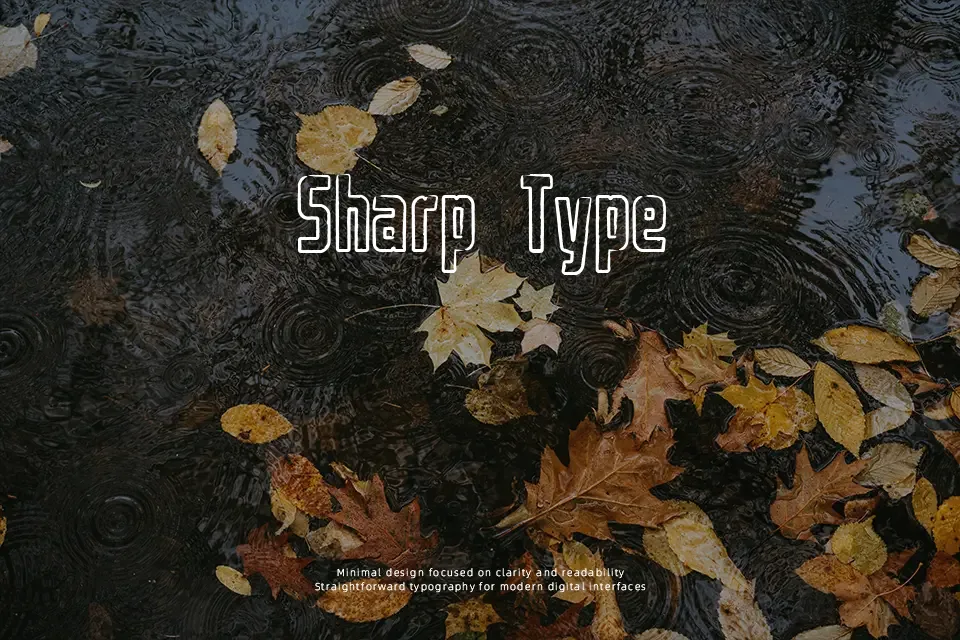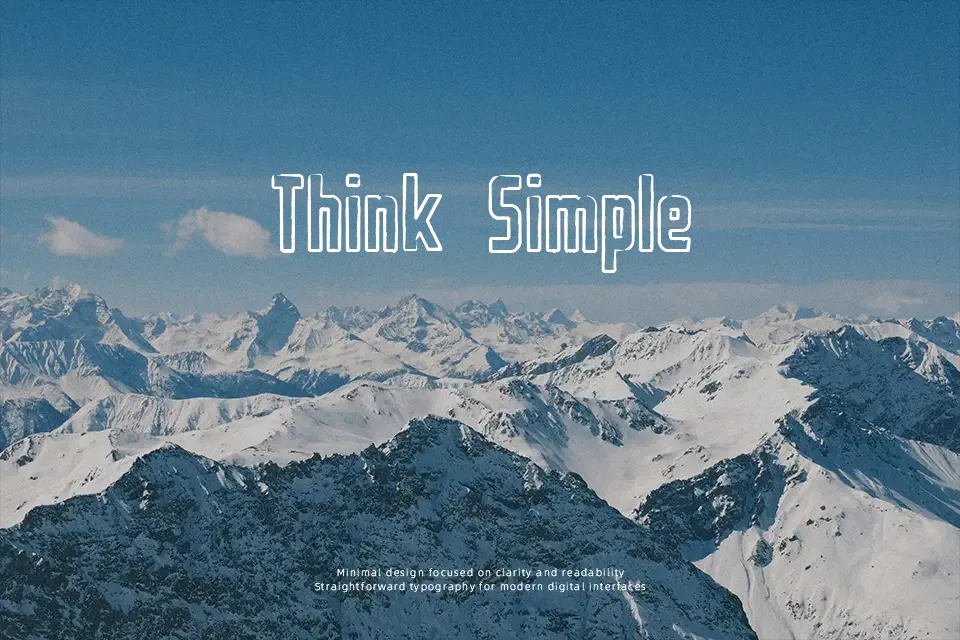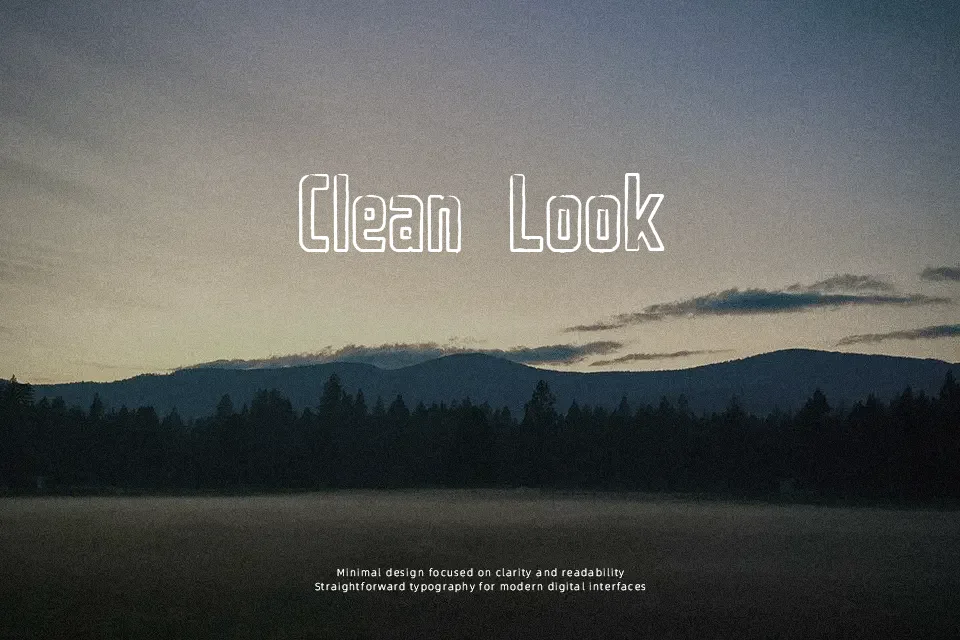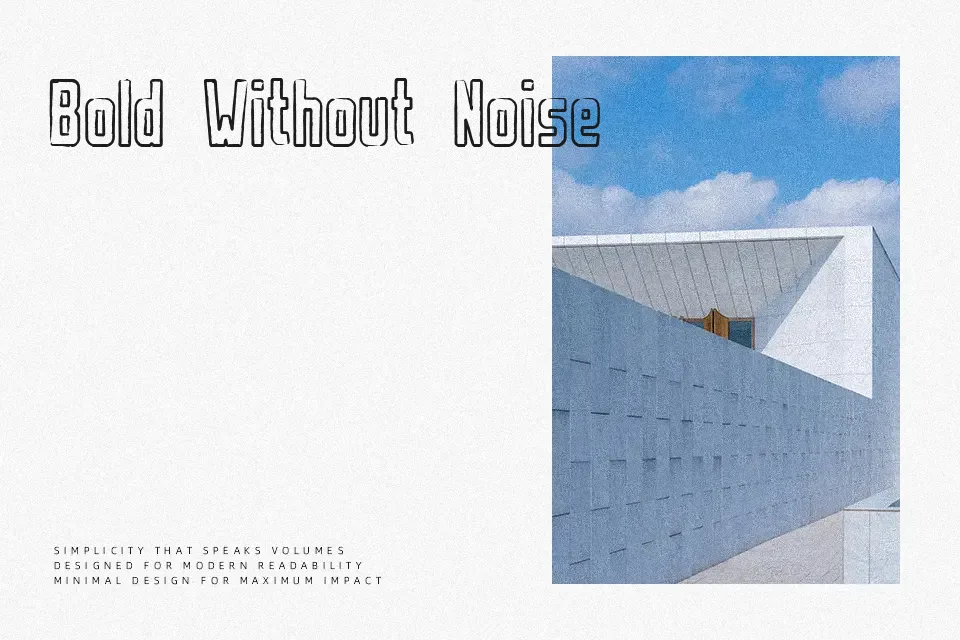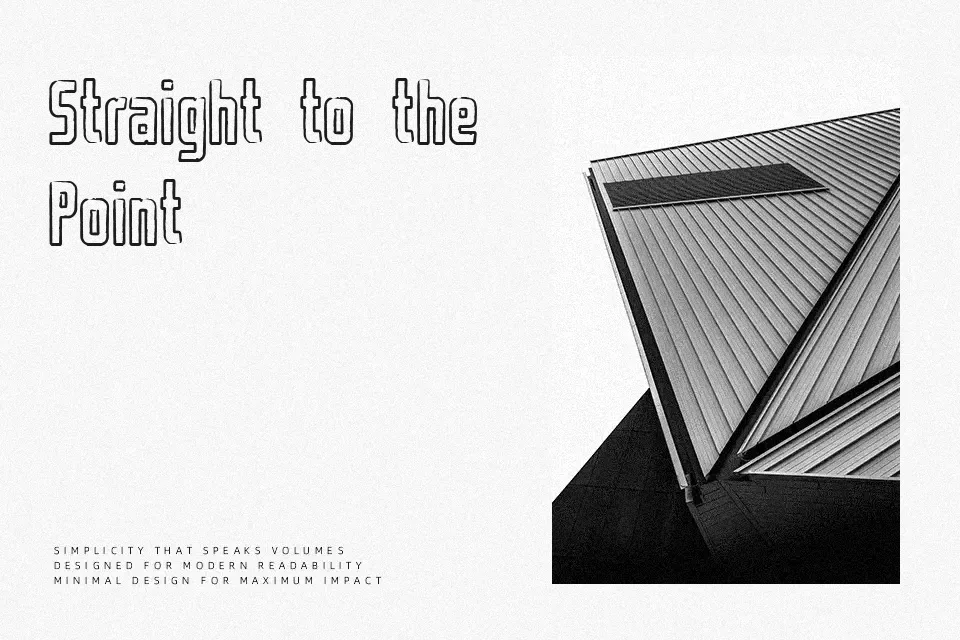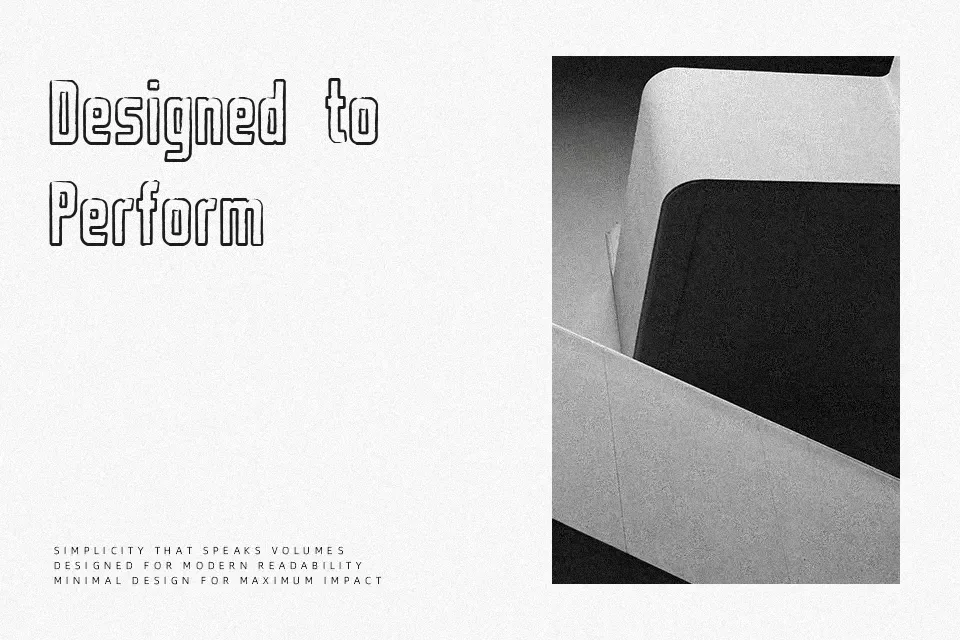
Urban Rubber Font
Urban Rubber Font establishes an immediate visual presence through its heavy, weather-worn sans serif skeleton, marked by irregular eroded contours and distressed inner cutouts. Consistent uppercase and lowercase letterforms share stout proportions with moderately tight character spacing, generating a dense visual rhythm suitable for compact headlines. The rugged silhouette remains legible at prominent display scales, yet the granular texture quickly deteriorates into illegible clutter when applied to continuous reading or miniature body copy. Designers seeking an authentic gritty aesthetic will appreciate its graphic punch on album sleeves and street posters, provided text remains brief and set at larger sizes.
Best For: skate apparel graphics,underground music festival posters,grunge packaging design,streetwear brand headlines
Not Ideal For: dense editorial paragraphs,corporate business documents,mobile app interfaces,micro legal disclaimers
Perfect for headline, logo, and music, with a bold and decorative style.